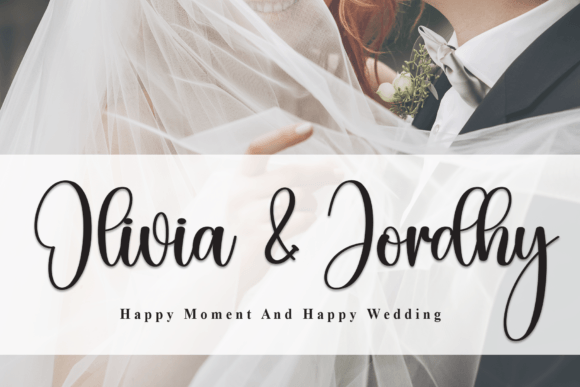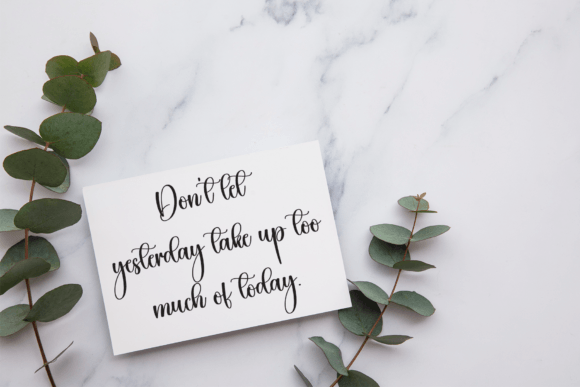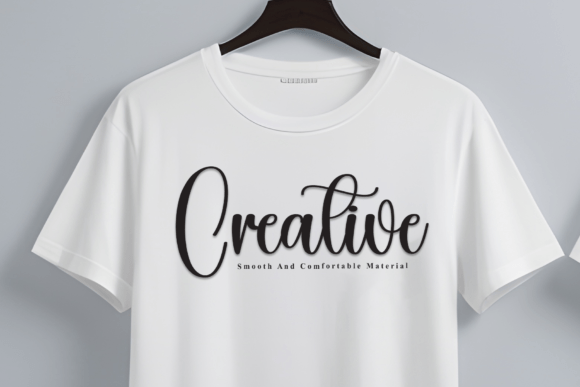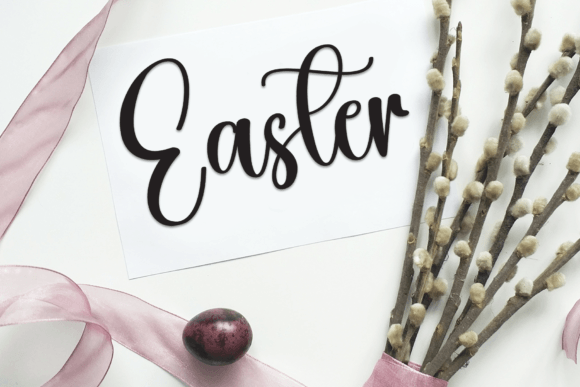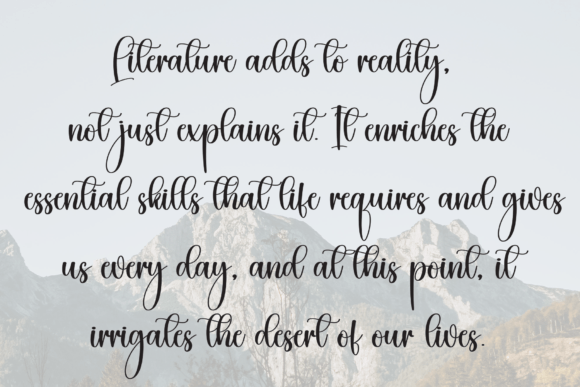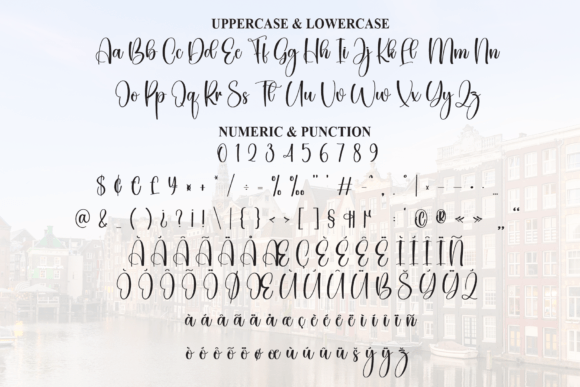
Discover the Charm of Amsterdam Font: A Perfect Blend of Thin and Bold Lines
Are you a designer, crafter, or simply someone who appreciates the beauty of typography? Look no further than the Amsterdam Font, a charming handwritten font that is sure to capture your heart. This delightful font combines thin and bold lines in a unique and captivating way, giving it a personal and friendly feel that is perfect for a wide range of creative projects.
The Characteristics of Amsterdam Font
Amsterdam Font is a handwritten font that exudes a sense of casual elegance. Its distinctive mix of thin and bold lines creates a visually appealing contrast that adds depth and character to any text. The font’s casual style gives it a personal and approachable feel, making it ideal for use in notes, invitations, and other creative projects where a touch of warmth and personality is desired.
What Makes Amsterdam Font So Versatile?
One of the standout features of Amsterdam Font is its versatility. Whether you’re designing a wedding invitation, a personal blog, or a social media graphic, this font is sure to adapt to your needs. Its unique blend of thin and bold lines makes it suitable for a wide range of design styles, from rustic and vintage to modern and minimalist.
Amsterdam Font is a dream come true for designers and crafters who value uniqueness and character in their work. Whether you’re creating custom stationery, crafting beautiful journals, or designing eye-catching posters, this font is sure to inspire your creativity. Its friendly and approachable feel makes it perfect for use in projects where you want to connect with your audience on a personal level.
Tips for Using Amsterdam Font Effectively
- Use it for headlines and titles to add a touch of personality and flair to your design.
- Pair it with other fonts to create a unique and visually appealing contrast.
- Don’t be afraid to get creative and try out new and innovative uses for the font.
In conclusion, Amsterdam Font is a charming and versatile handwritten font that is sure to delight designers, crafters, and anyone who appreciates the beauty of typography. Its unique blend of thin and bold lines, casual style, and friendly feel make it perfect for a wide range of creative projects. Whether you’re designing a wedding invitation, crafting a journal, or simply looking for a new font to add to your collection, Amsterdam Font is definitely worth checking out.
- What type of font is Amsterdam Font? Amsterdam Font is a handwritten font that combines thin and bold lines.